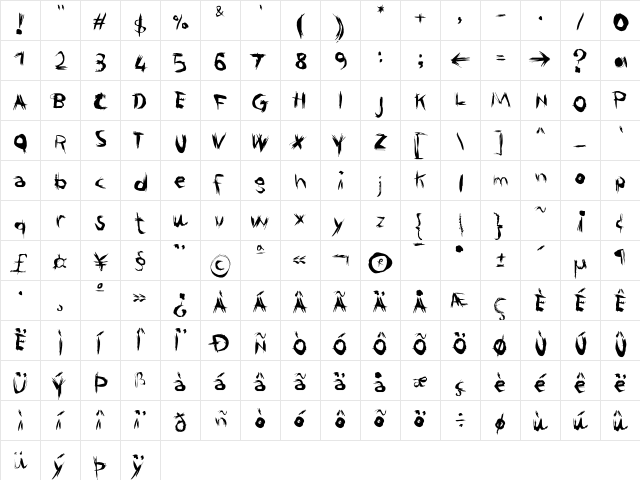
Graffio Offensivo
Design Context for Graffio Typeface
Graffio is a composed and adaptable typeface that performs quietly and consistently across a wide range of design contexts.